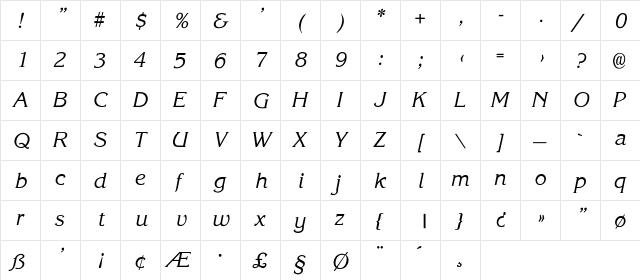
Korina-SemiBold-Italic Regular Font Preview
Korina-SemiBold-Italic Regular
Korina-SemiBold-Italic Regular Font Details
Design Context for Korina-SemiBold-Italic Typeface
Korina-SemiBold-Italic takes a measured approach to typography — its balanced proportions and neutral character make it a reliable workhorse for both digital and print work. Its italic angle brings a sense of urgency and motion to the letterforms. Its bold stroke weight gives it real presence on the page.
Pro Tip: Use Korina-SemiBold-Italic for emphasis, pull quotes, and subheadings where its slanted energy can add rhythm to the layout.